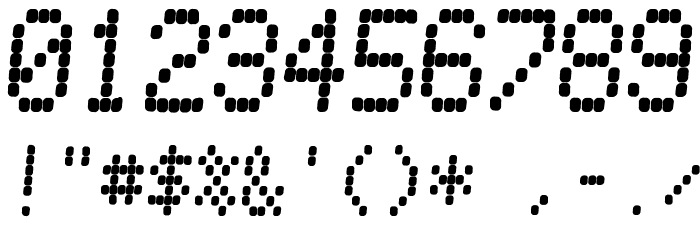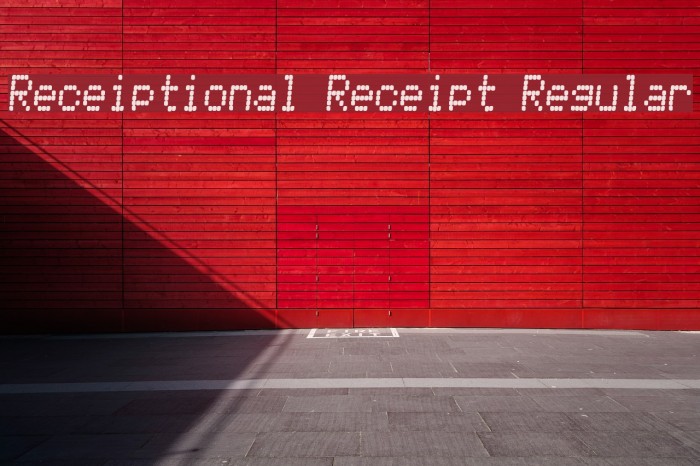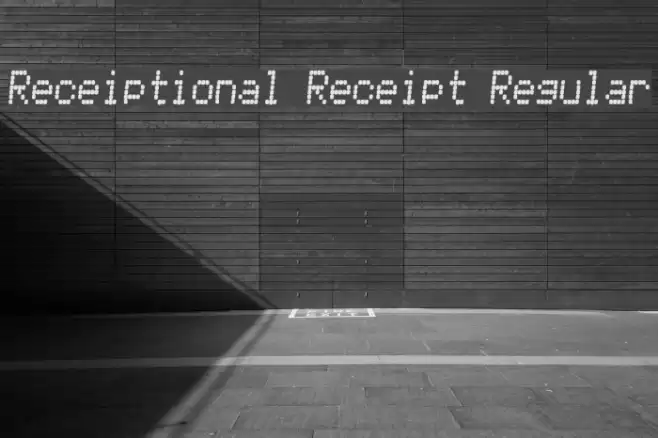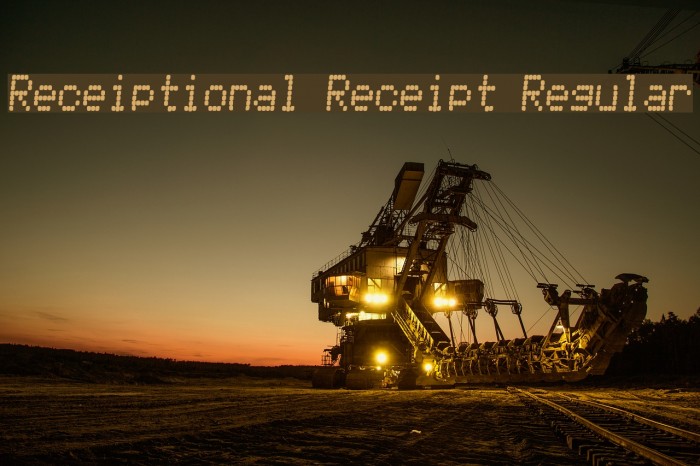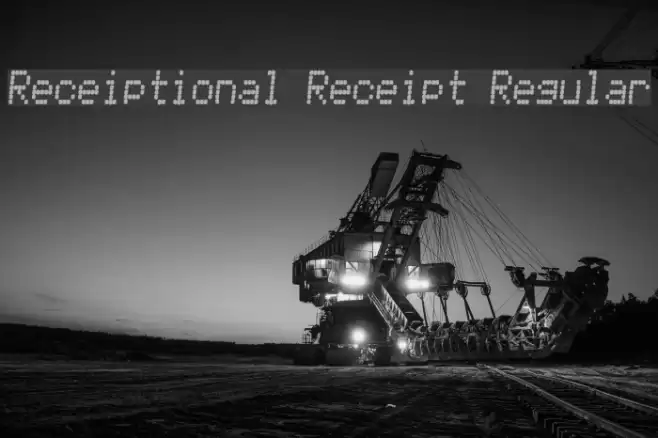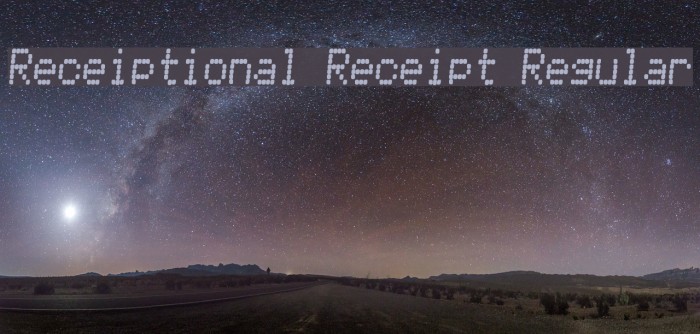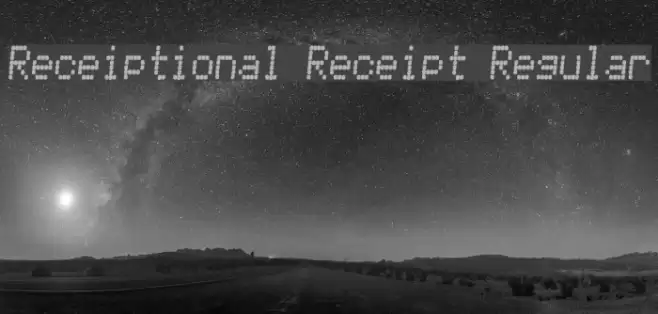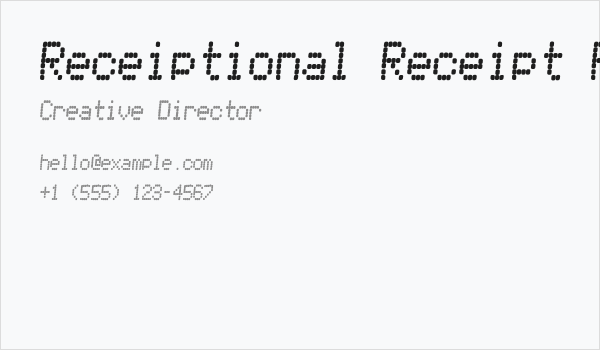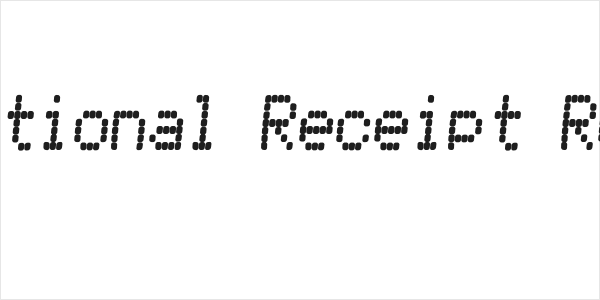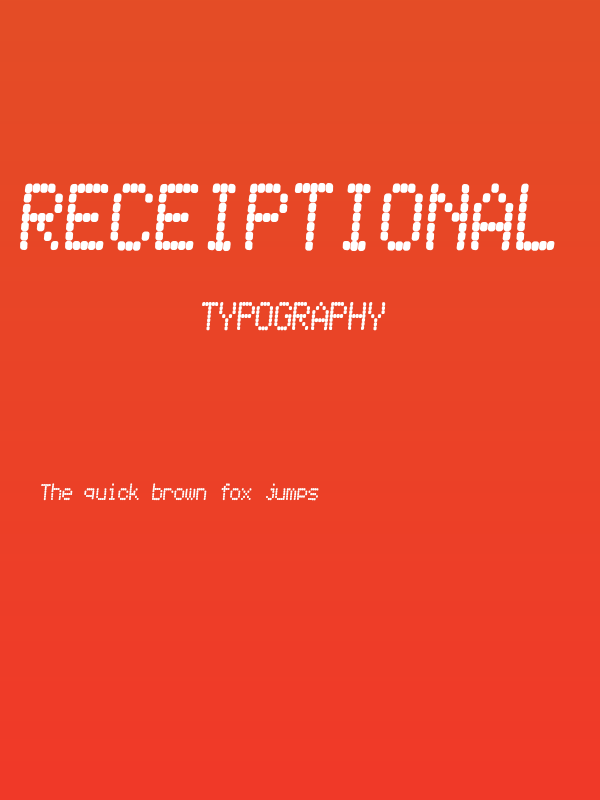
Receiptional Receipt Regular Font
Receiptional Receipt Regular Description
This font features a unique dot matrix design, reminiscent of old digital displays and printers. Each character is constructed from a grid of dots, giving it a retro, technological feel. The uppercase and lowercase letters maintain a consistent style, with rounded edges formed by the arrangement of dots. Numbers and special characters follow the same pattern, ensuring uniformity across all glyphs. The font's distinct appearance makes it stand out, ideal for projects that require a digital or vintage touch.
| Use Case | Logos, Posters, Digital Displays |
| Proposed Projects | Ideal for digital-themed designs, retro posters, tech-related branding, and any project needing a vintage digital look. |